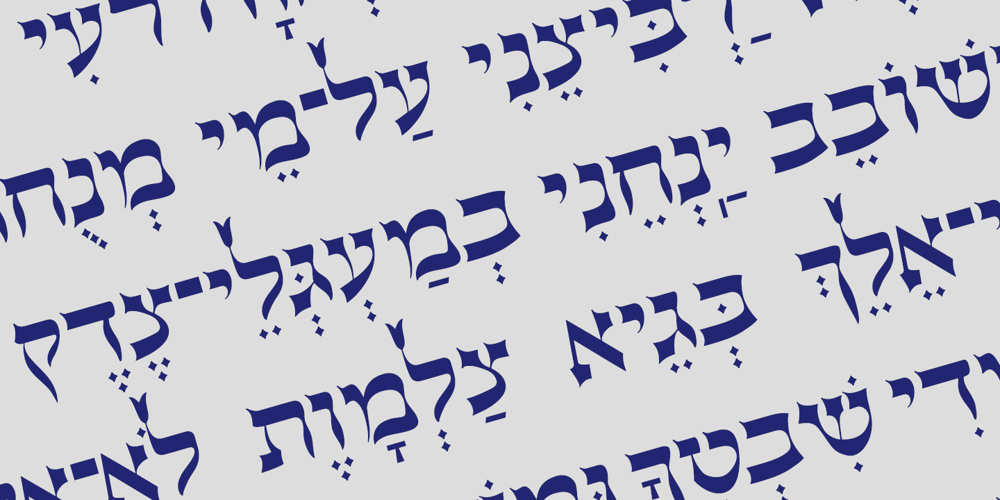
Hebrew Century
Hebrew Century font
Hebrew Century Font Family was designed by Sami Artur Mandelbaum and published by Samtype. Hebrew Century contains 1 styles and family package options. This is a font from the 10th century and is still pretty.This is a classic format.